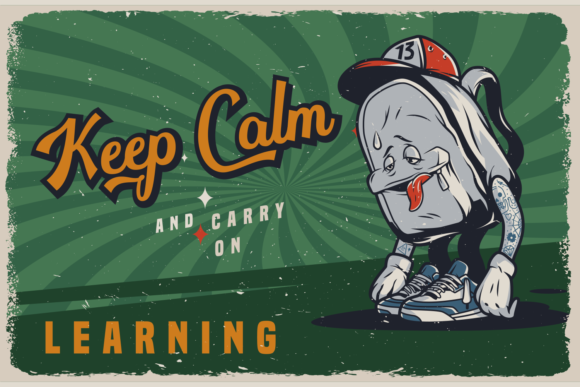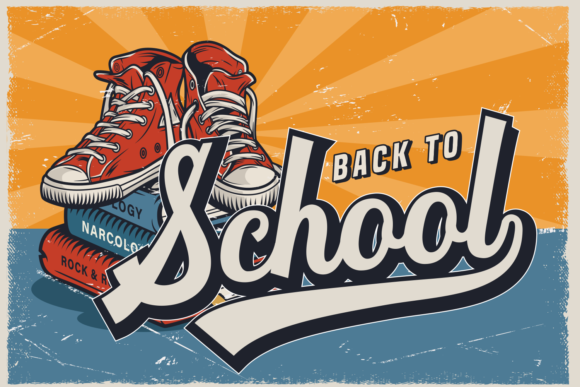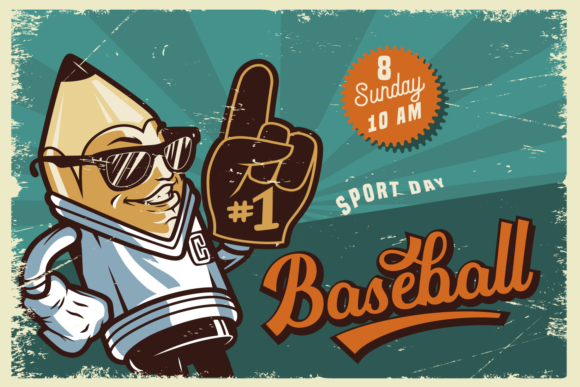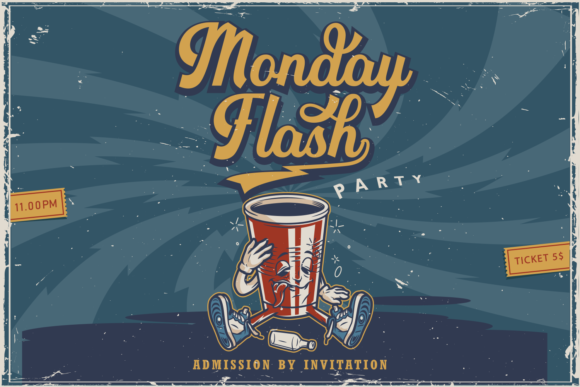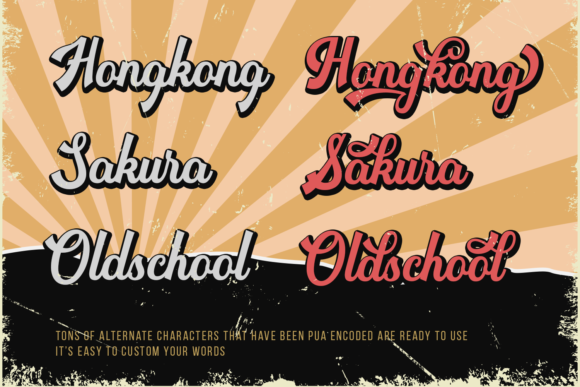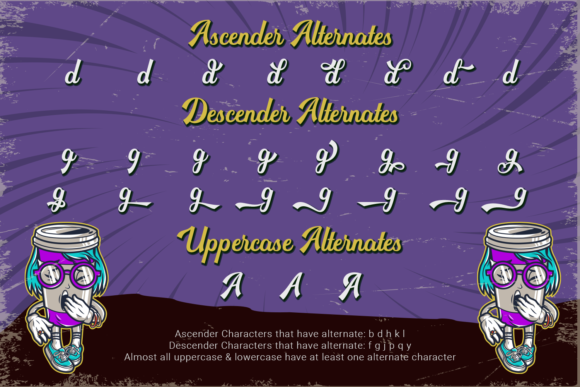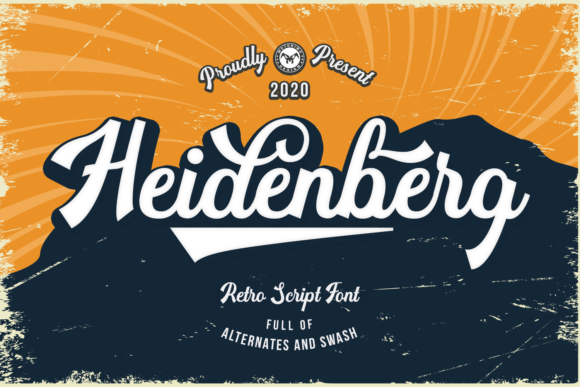
Introducing Heidenberg Font: A Timeless Vintage Script for Creative Projects
Are you on the hunt for a font that exudes elegance, sophistication, and a touch of vintage charm? Look no further than Heidenberg Font, a stunning handwritten script that’s perfect for a wide range of creative projects. With its flowing lines, beautiful connections, and incredibly versatile style, Heidenberg is sure to capture your heart and inspire your designs.
The Characteristics of Heidenberg Font
Heidenberg Font is a true gem in the world of typography. Its vintage style is reminiscent of classic scripts from a bygone era, yet its modern sensibilities make it perfect for contemporary designs. The font features:
- Flowing handwritten lines with beautiful connections
- A vintage style that’s both elegant and sophisticated
- Incredibly versatile, making it suitable for a wide range of projects
- Perfect for creating gorgeous wedding invitations, beautiful stationary art, eye-catching social media posts, and more
Why Designers and Crafters Love Heidenberg Font
Heidenberg Font has quickly become a favorite among designers and crafters, and it’s easy to see why. Here are just a few reasons why this font stands out:
- Unique and distinctive style: Heidenberg Font has a one-of-a-kind look that will set your designs apart from the crowd.
- Elegant and sophisticated: The font’s vintage style adds a touch of luxury and refinement to any project.
- Highly versatile: Heidenberg Font can be used for a wide range of projects, from wedding invitations and stationary art to social media posts and more.
- Easy to read: Despite its ornate style, Heidenberg Font is surprisingly easy to read, making it perfect for body text and other applications where legibility is key.
Using Heidenberg Font in Your Designs
Heidenberg Font is incredibly easy to use and can be applied to a wide range of design projects. Here are a few ideas to get you started:
- Wedding invitations: Create beautiful, bespoke wedding invitations that set the tone for a stylish and sophisticated celebration.
- Stationary art: Use Heidenberg Font to create gorgeous stationary art, including greeting cards, thank you cards, and more.
- Social media posts: Add a touch of elegance and sophistication to your social media posts with Heidenberg Font.
- Branding and packaging: Use Heidenberg Font to create a unique and memorable brand identity that stands out from the crowd.
Tips and Tricks for Getting the Most Out of Heidenberg Font
To get the most out of Heidenberg Font, here are a few tips and tricks to keep in mind:
- Experiment with different sizes and colors: Heidenberg Font looks great in a variety of sizes and colors, so don’t be afraid to experiment and find the perfect combination for your design.
- Pair with complementary fonts: Heidenberg Font pairs beautifully with a range of complementary fonts, so try pairing it with a clean sans-serif font for a striking contrast.
- Use it sparingly: While Heidenberg Font is incredibly versatile, it’s best used sparingly to add a touch of elegance and sophistication to your design.
In conclusion, Heidenberg Font is a stunning handwritten script that’s perfect for designers and crafters looking to add a touch of vintage charm to their projects. With its flowing lines, beautiful connections, and incredibly versatile style, Heidenberg Font is sure to capture your heart and inspire your designs. Whether you’re creating wedding invitations, stationary art, social media posts, or more, Heidenberg Font is the perfect choice for anyone looking to add a touch of elegance and sophistication to their work.